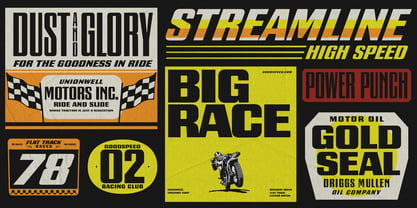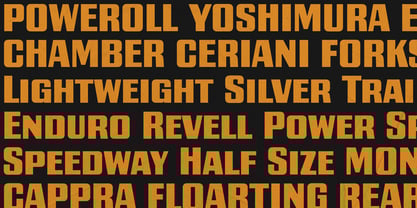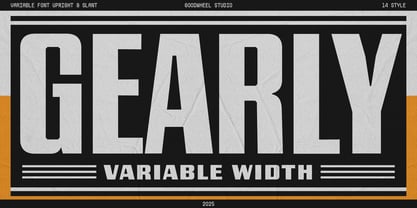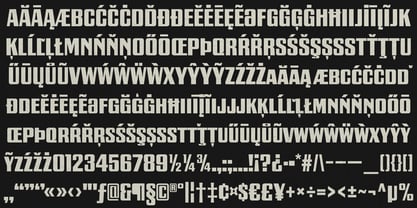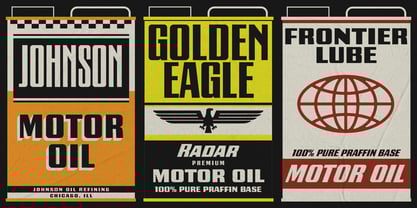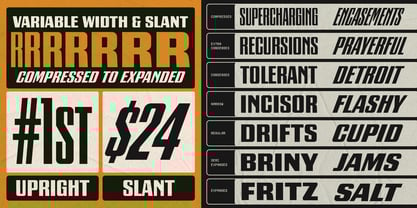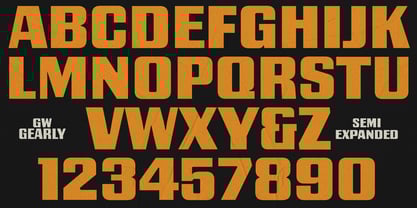
GW Gearly
Gearly is a bold square display typeface built for strong visual impact. It comes in 14 styles, from Compressed to Expanded, each available in a Slant version for added flexibility. The variable font includes Width and Slant axes, allowing precise control to fit any layout or space. Designed for headlines, posters, logos, and display typography, Gearly delivers consistent strength and clarity across all sizes and formats.